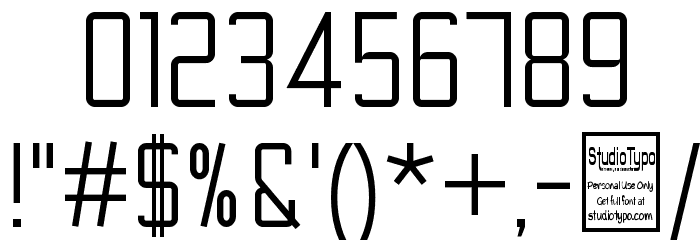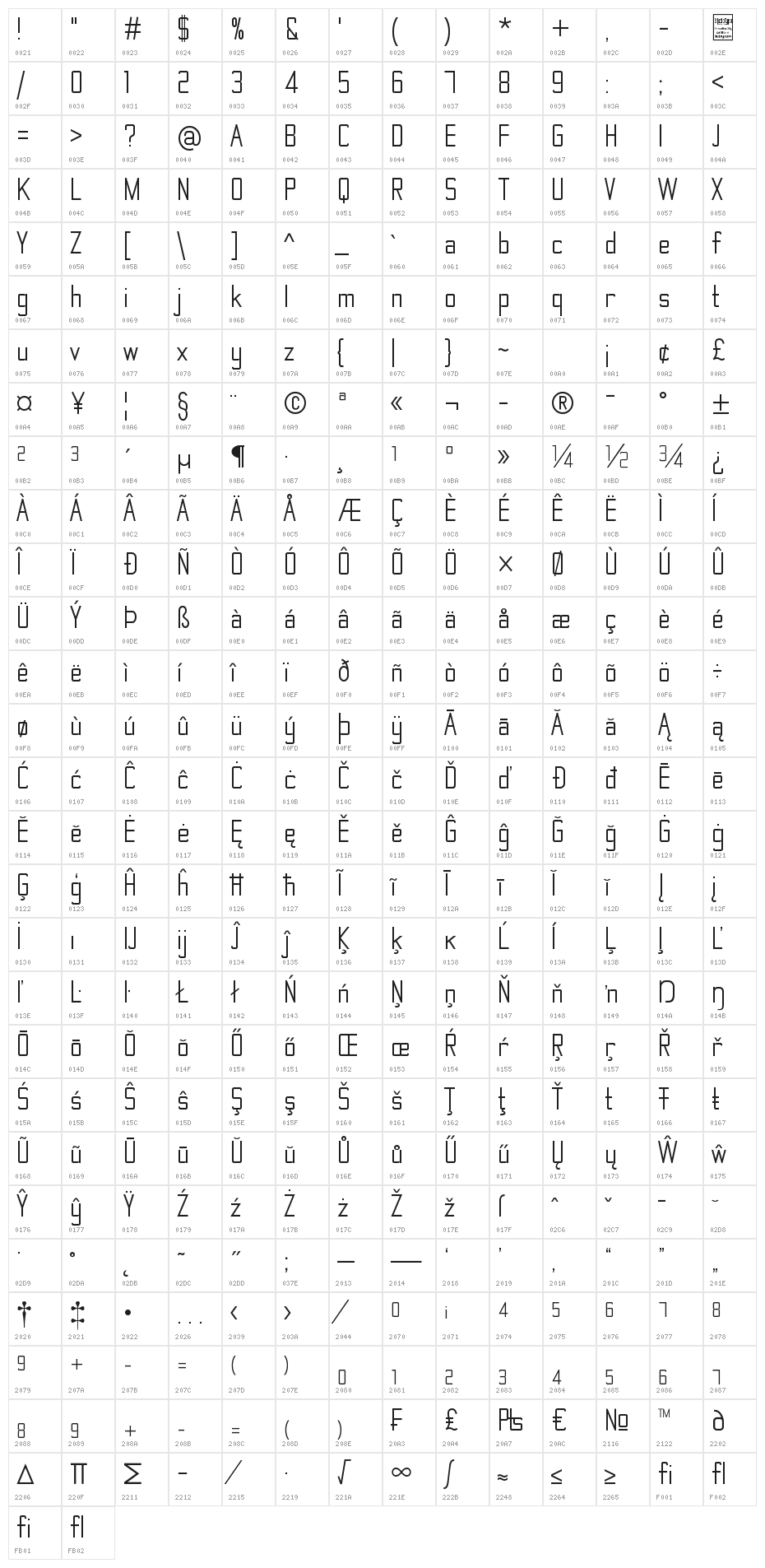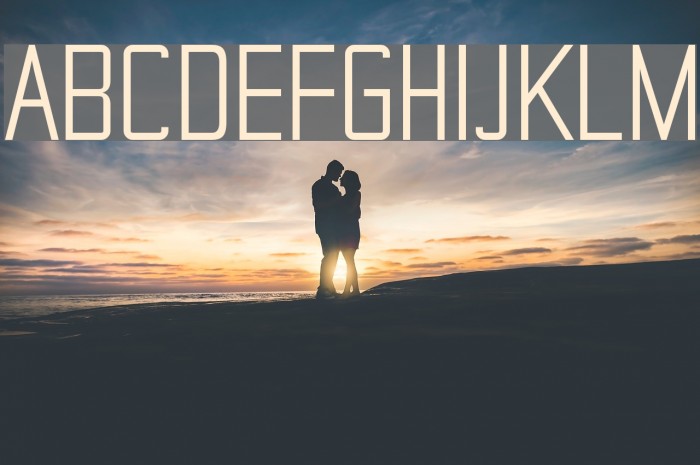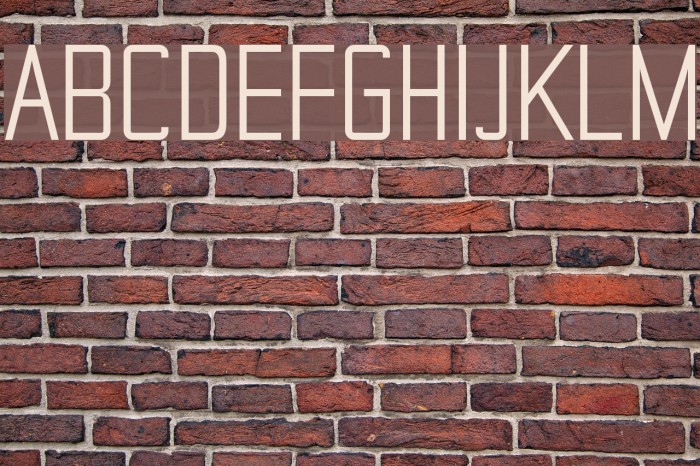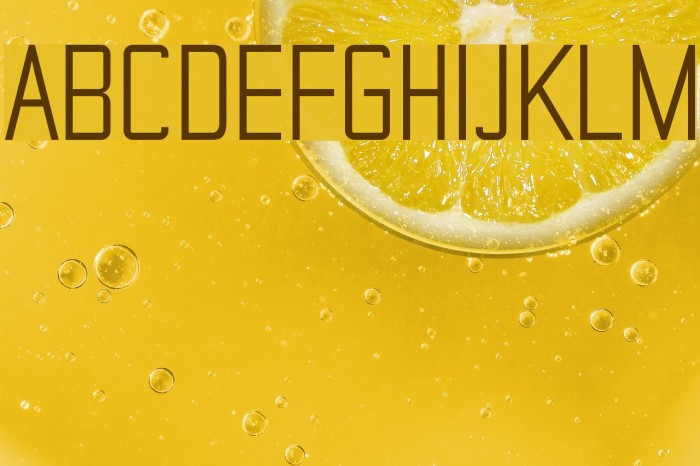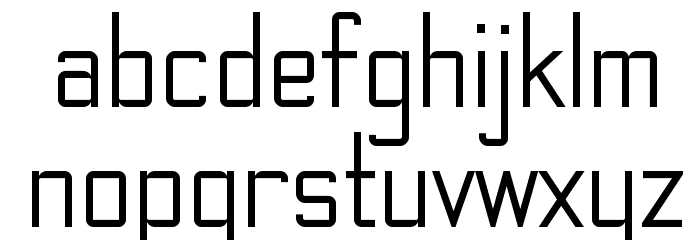
TheMatic Font
TheMatic Description
This font features a clean, geometric design with a modern aesthetic. The characters are constructed with straight lines and sharp angles, giving it a technical and precise appearance. The uppercase letters are tall and narrow, while the lowercase letters maintain a consistent height, contributing to a uniform look. The numerals are distinct and align well with the overall style, making them easily readable. Special characters are included, matching the font's sleek and structured design. This font is suitable for projects that require a contemporary and professional touch.
| Use Case | Headlines, Logos, Digital Interfaces |
| Proposed Projects | Ideal for technology branding, modern posters, digital interfaces, and corporate presentations. |